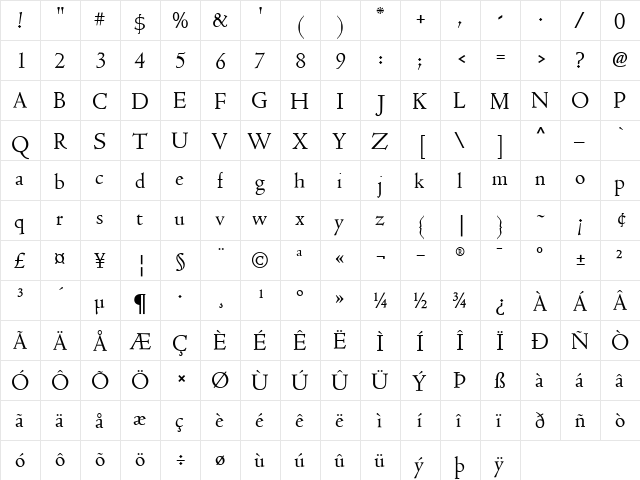
NicolasJensonSG Regular
Design Context for NicolasJensonSG Typeface
NicolasJensonSG takes a measured approach to typography — its balanced proportions and neutral character make it a reliable workhorse for both digital and print work.